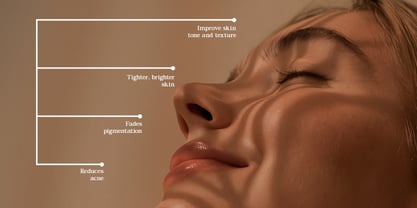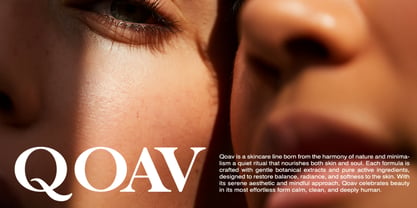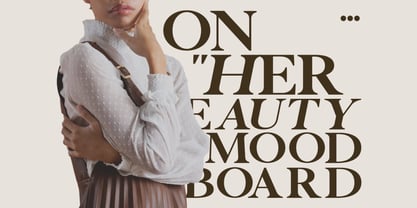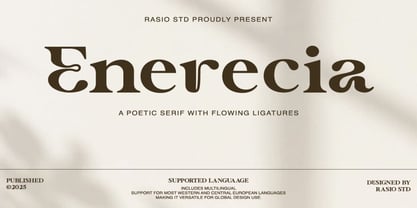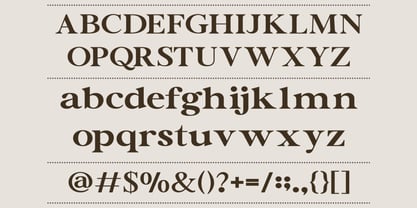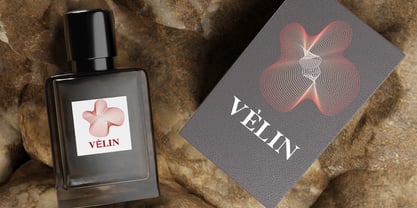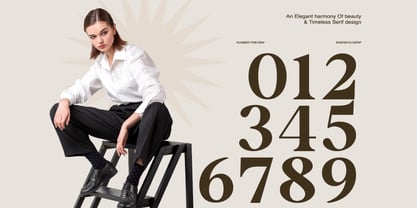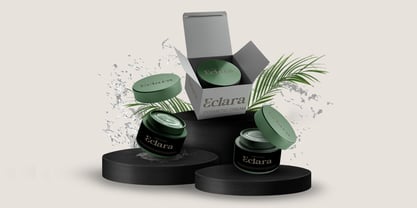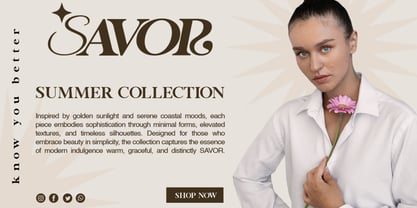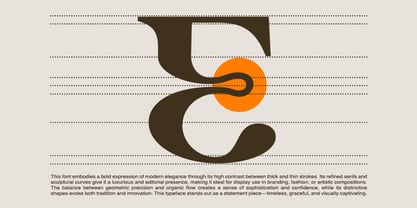
Enerecia
by Rasio Studio
The Enerecia Font Family was designed by Fajar Indra and published by Rasio Studio. Enerecia contains 1 styles. More about this family
Enerencia is a poetic serif typeface that harmonizes beauty, balance, and timeless sophistication. With refined contrast between thick and thin strokes, it embodies a sculptural elegance that feels both classic and contemporary. Each curve and serif is crafted to deliver visual rhythm and expressive flow, making it a standout choice for designers who appreciate artistic nuance. This font exudes editorial luxury with a touch of warmth and character, ideal for branding, fashion headlines, magazines, or artistic layouts. Featuring uppercase, lowercase, numerals, punctuation, ligatures, and multilingual support, Enerencia represents the perfect blend of geometry and grace — a typeface that feels modern yet timeless.
Designers: Fajar Indra
Foundry: Rasio Studio